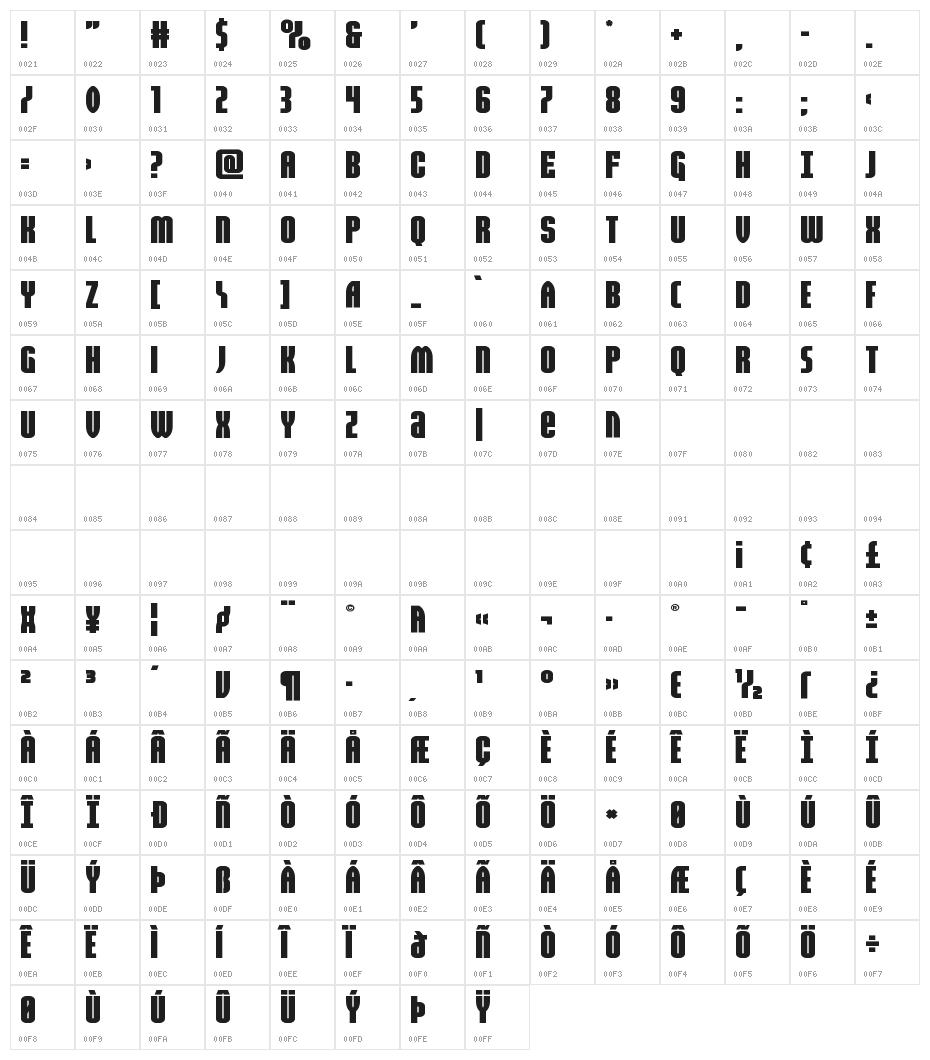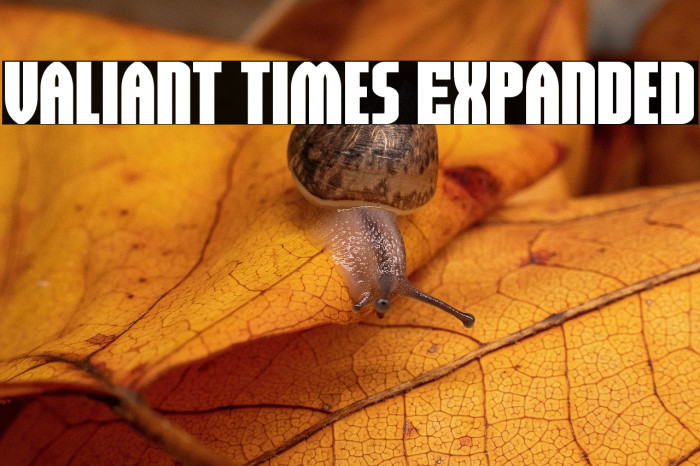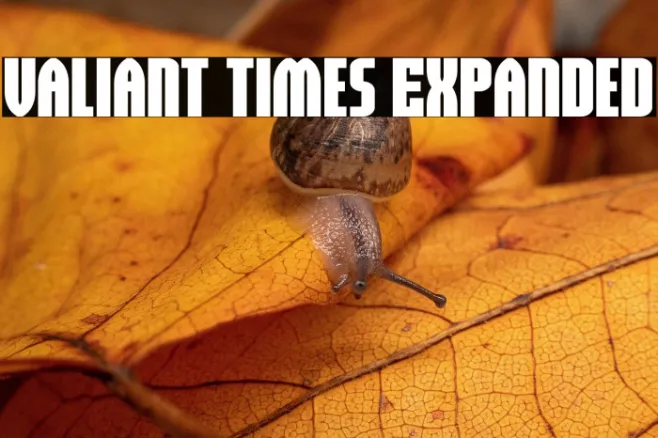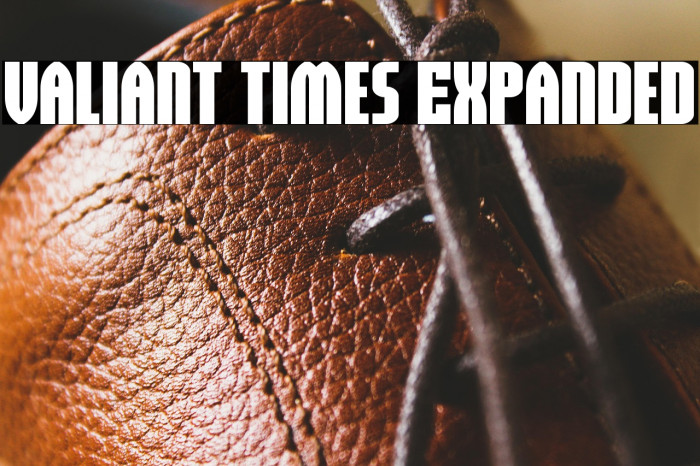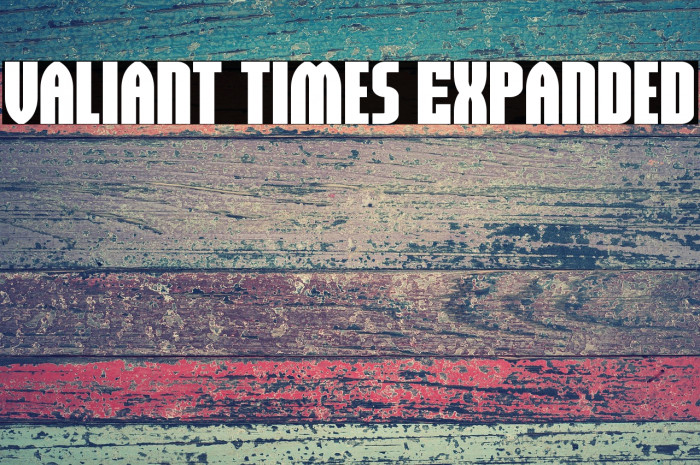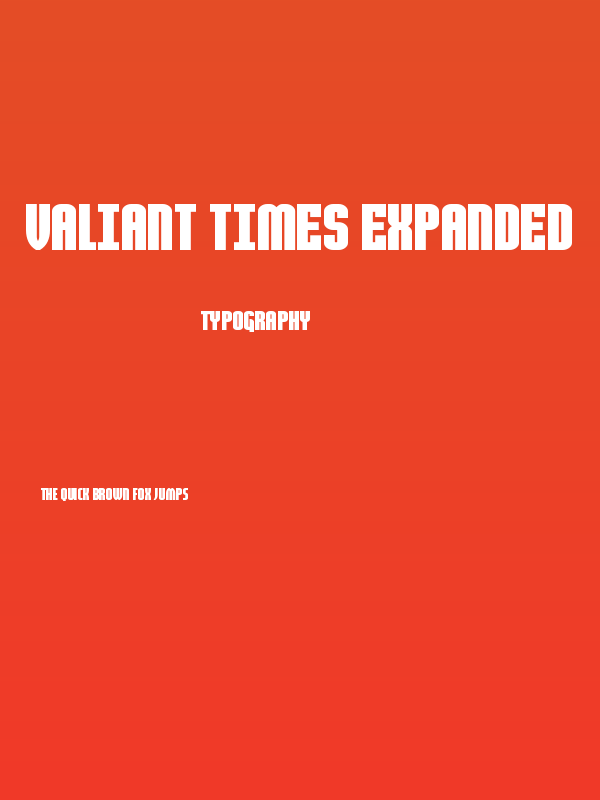
Valiant Times Expanded Font
Valiant Times Expanded Description
This font exhibits a bold and commanding presence with its thick, block-like characters. The uppercase letters are uniform in height, creating a strong and cohesive look. The strokes are consistent and heavy, contributing to a robust and impactful appearance. The design is straightforward yet powerful, with minimal curves and a focus on straight lines and angles. This font is highly legible and makes a statement with its expanded width, which adds to its assertive style. The numbers and special characters maintain the same boldness, ensuring consistency across all elements.